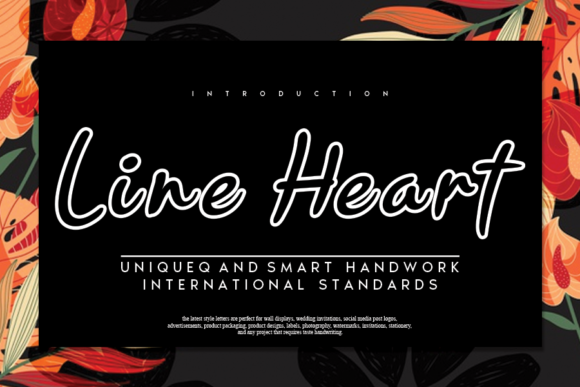
Line Heart Font: A Joyful Display Typeface for Crafters
If you're a crafter, handmade seller, or printable product creator who values both beauty and clarity in your designs, Line Heart is the display font that brings charm and character to your work. As a display font, it’s designed to shine where visual impact matters most—on labels, stickers, invitations, signs, and more. Its flowing style and joyful essence make it perfect for adding a personal touch without sacrificing readability.
Line Heart for Wedding Invitations and Elegant Branding
Line Heart is ideal for wedding stationery and branding projects that call for warmth and elegance. Whether you're designing save-the-date cards, formal invitations, or signage for a venue, this display font can elevate your work with its soft curves and heartwarming aesthetic. It adds an incredibly joyful touch to each element, helping your brand or event stand out with a unique personality. For boutique owners or planners, using Line Heart ensures your clients feel the love before they even arrive at the venue.
Using Line Heart on Product Labels and Stickers
As a small shop owner or handmade seller, your product labels and stickers are the first thing customers see. That's where Line Heart truly shines as a display font. Its legible yet artistic structure works well for short phrases like "Handmade with Love" or "Natural Soy Candle." You can confidently use it on small tags and packaging because it maintains clarity even at lower sizes. This makes it especially valuable for those working with cutting machines like Cricut or Silhouette, where precision and visibility are key.
Realistic Examples for Sticker Designs
- Candle labels: Use Line Heart to highlight names like “Cozy Glow” or “Evening Serenity” for a cozy, inviting look.
- Boutique price tags: Pair Line Heart with minimal text for a clean but charming aesthetic.
- Gift tags: Create personalized gift tags with names or messages that pop visually while staying easy to read.
Line Heart in Greeting Cards and Seasonal Crafts
For greeting card designers and printable creators, Line Heart offers a fresh way to present messages of joy and celebration. Its cute and flowing nature fits perfectly into birthday, anniversary, and holiday cards. The font helps your designs stand out by balancing whimsy with professionalism. When used in digital printables, it ensures that every download feels special and worth sharing.
Seasonal craft projects also benefit from this versatile display font. Think about how Line Heart could transform your Christmas ornament tags, Easter egg baskets, or Halloween welcome signs. The emotional appeal of the typeface enhances customer connection, making your products more desirable and memorable.
Design Tips for Readability in Cards
- Stick to short phrases and avoid long paragraphs since Line Heart is best suited for display use.
- Use a slightly bolder weight or increase stroke contrast if printing on textured or dark paper.
- Always preview your design in a realistic mockup to ensure the font looks good under different lighting conditions.
Line Heart for Wall Art and Planner Pages
Wall art and planner pages are all about creating a visual experience that speaks to the viewer. Line Heart, as a display font, is perfect for titles, quotes, and decorative elements in these spaces. Its soft and flowing lines bring a sense of calm and creativity to farmhouse-style prints, minimalist wall art, or daily inspiration quotes.
When crafting planner pages, Line Heart can be used for section headers or motivational sayings without overwhelming the layout. It blends beautifully with other fonts when layered in SVG-style designs, offering flexibility for both digital downloads and physical crafts. Just remember that it's a display font, so it should be reserved for accents rather than large blocks of text.
Font Pairing Ideas for Wall Art
- Line Heart + Clean Sans Serif: Perfect for pairing expressive script with modern typography in quote-based art.
- Line Heart + Bold Serif: Adds contrast and drama to statement wall art pieces.
- Line Heart + Handwritten Script: Ideal for cohesive collections with varying levels of texture and flow.
Line Heart in Product Packaging and Merchandise Design
Merchandise and packaging design require fonts that not only look great but also communicate trust and quality. Line Heart delivers both, making it an excellent choice for product packaging, especially in niches like candles, bath products, or artisanal foods. Its flowing style gives off a handmade vibe, which appeals to customers looking for authenticity and care in their purchases.
For T-shirts, mugs, and tote bags, Line Heart’s gentle curves add a friendly and approachable feel. It’s particularly effective for names, logos, or taglines. Since it’s a display font, it won’t distract from the overall design but will instead serve as a focal point that draws attention and admiration.
So next time you're brainstorming a new project, consider how Line Heart can enhance your design language. With its flowing curves and commercial viability, it's ready to bring your vision to life—just make sure to pair it wisely, respect licensing, and let it shine where it counts most.